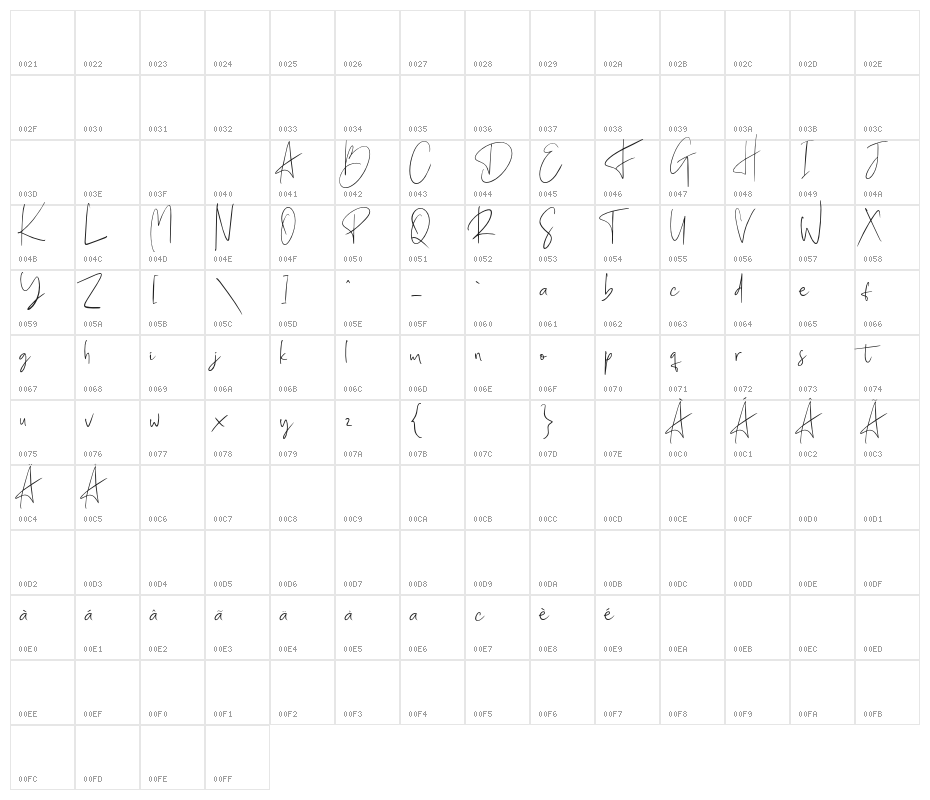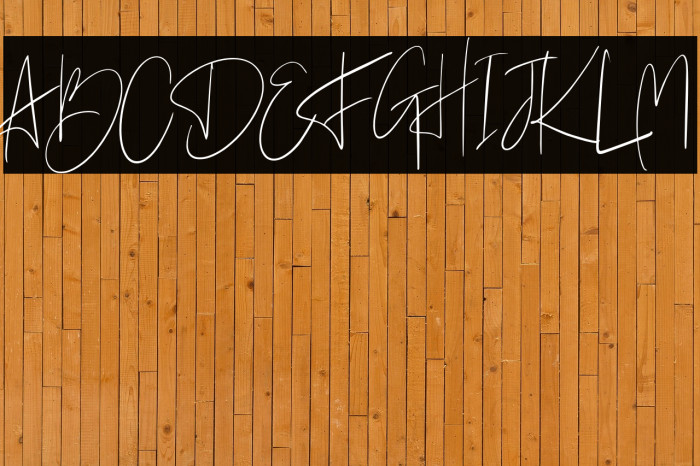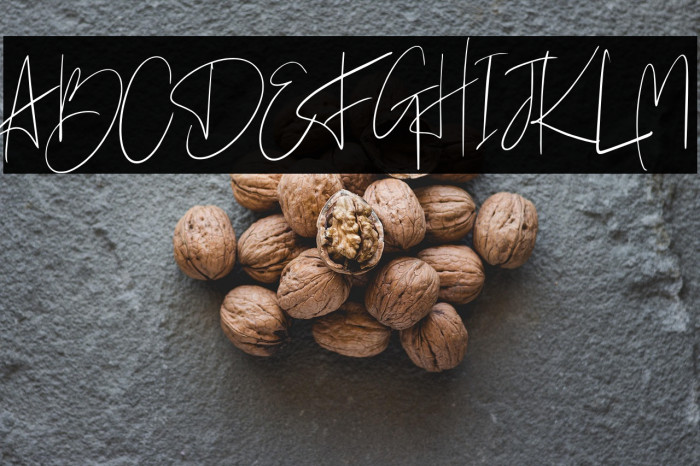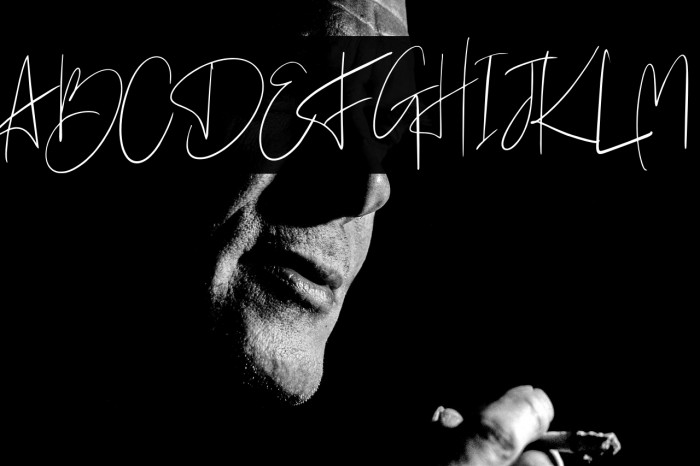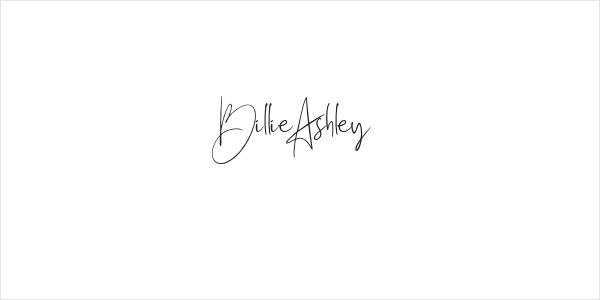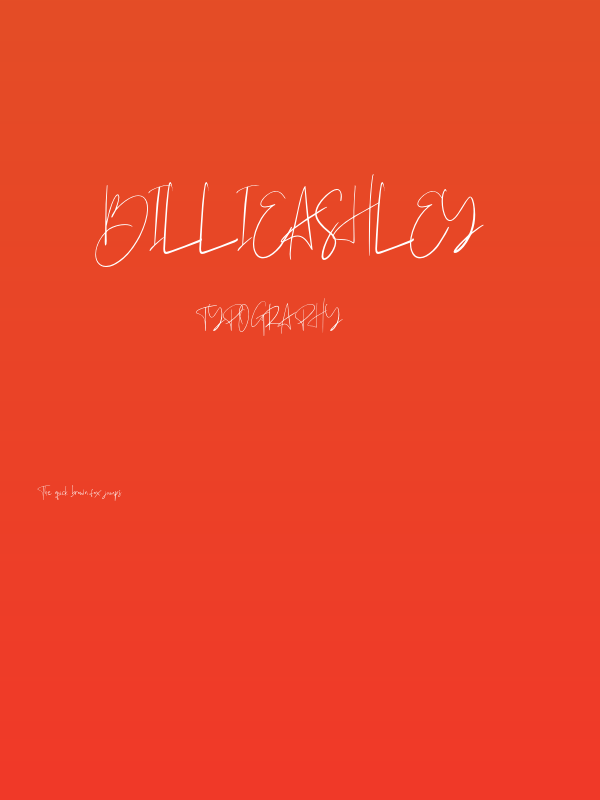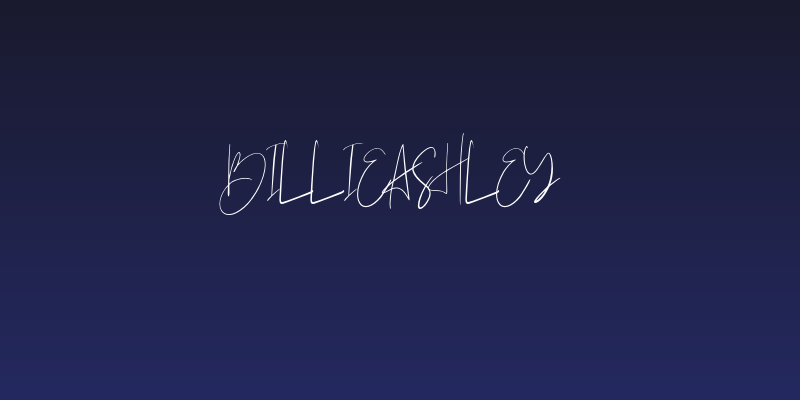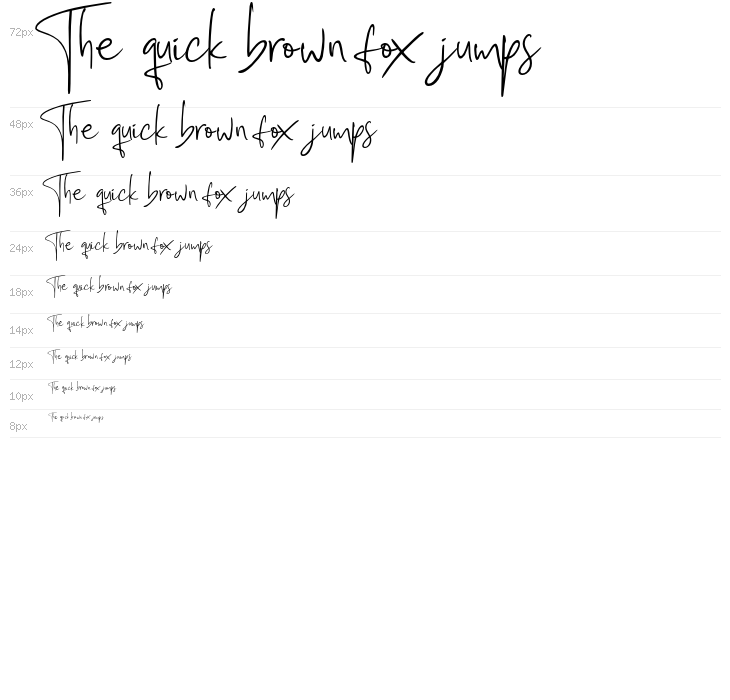
BillieAshley Font
BillieAshley Description
This font features a playful and expressive handwritten style, characterized by its flowing and dynamic letterforms. The uppercase letters are tall and slender, with a slight slant that adds a sense of movement and energy. The lowercase letters maintain a consistent style, with elongated strokes and a casual, informal appearance. The overall design is reminiscent of a personal signature, making it ideal for projects that require a personal touch. The font's unique character is further enhanced by its irregular baseline and varying stroke thickness, which contribute to its lively and spontaneous feel.